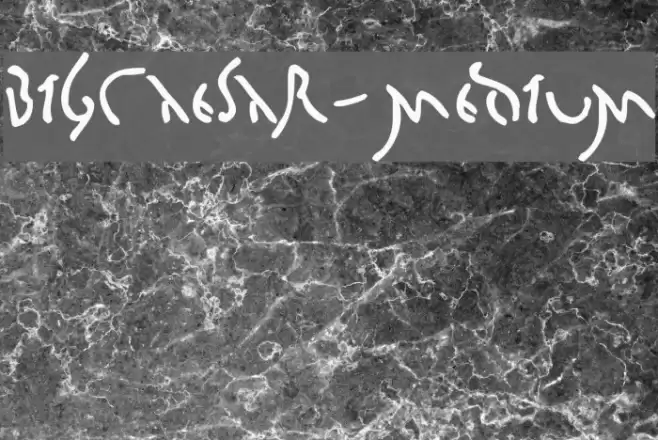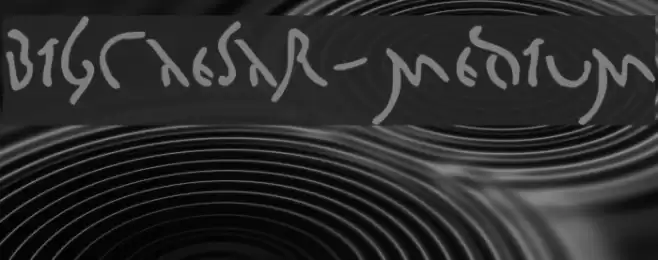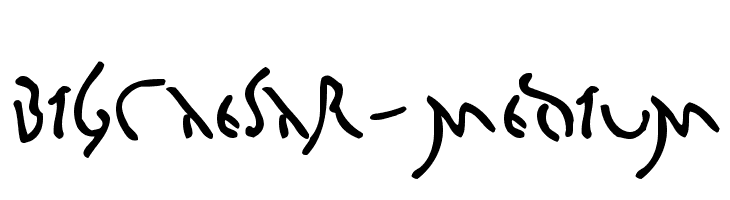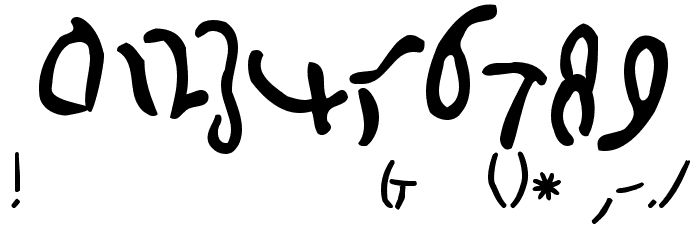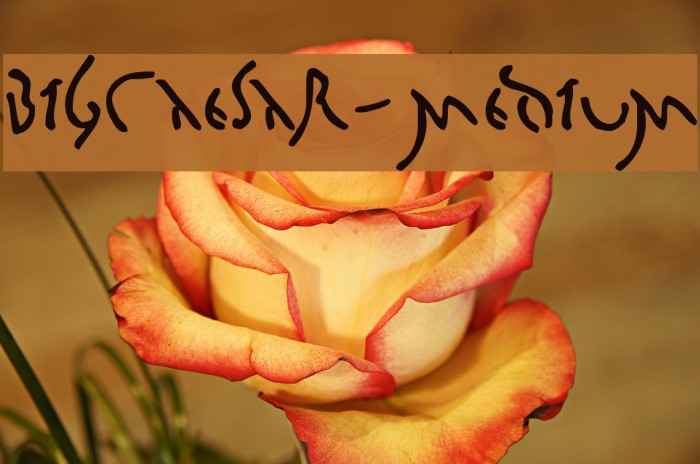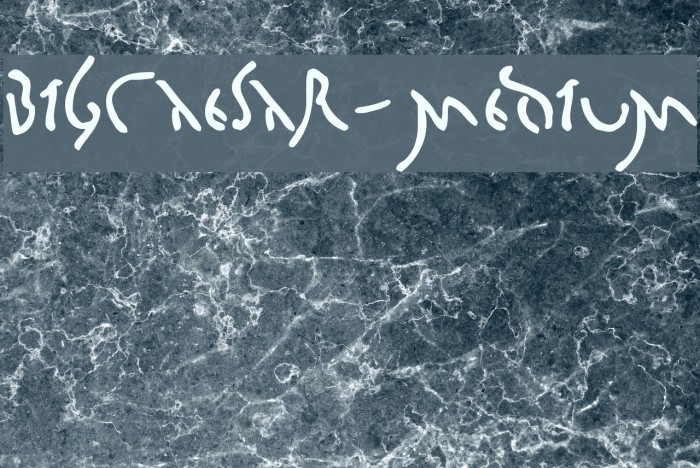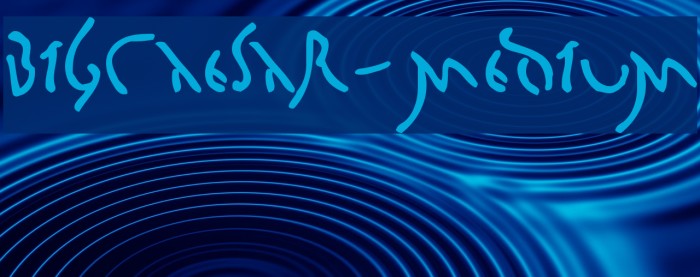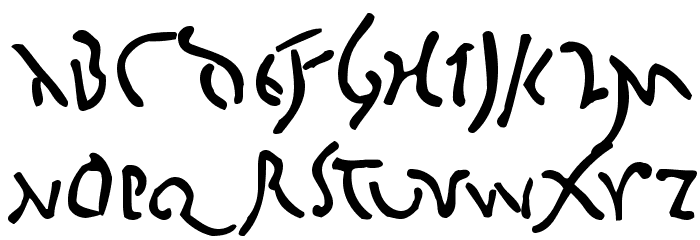
BigCaesar-Medium Font
BigCaesar-Medium Description
This font features a bold, expressive style with a hand-drawn appearance. The characters are fluid and dynamic, with a playful yet sophisticated look. The strokes vary in thickness, adding a sense of movement and energy. The uppercase and lowercase letters maintain a consistent style, while the numbers and special characters complement the overall design. This font is ideal for projects that require a personal touch, such as invitations, greeting cards, or artistic posters.
A bold, hand-drawn font with dynamic, fluid strokes from Uncategorized fonts.
- Proposed Projects: Ideal for artistic posters, invitations, greeting cards, and creative branding.
- Use Case: Logos, Headlines, Artistic projects